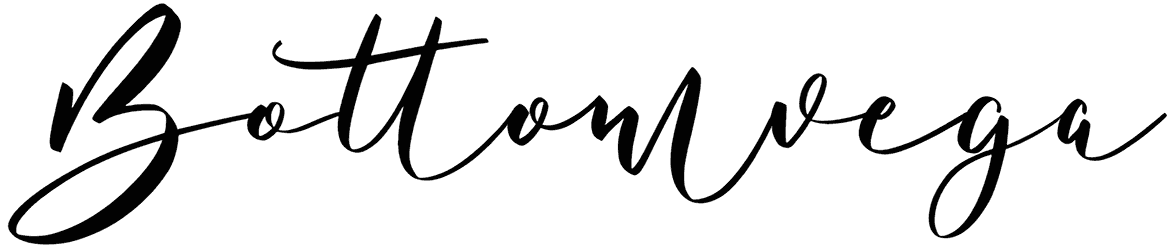
Bottomvega Font
Bottomvega is a cursive script font that gives you the advantage of being always one step ahead of all competitors. It helps your creative projects, including wedding invitations, greeting cards, logos, merchandise, or book covers, look more appealing to the audience. Aside from not supporting numbers, this calligraphy font can boost a vibe of vitality, freshness, personalization, or professionalism in your editorial projects.